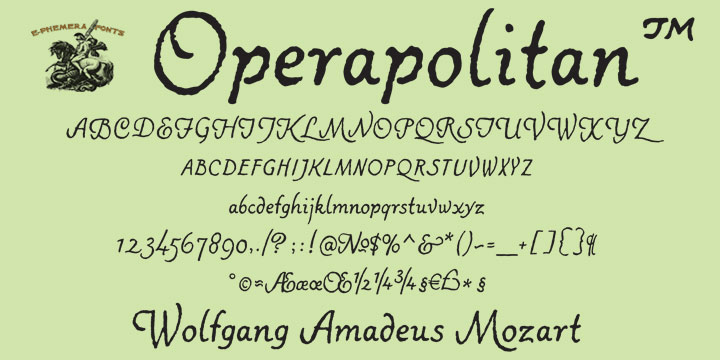
Operapolitan
About Operapolitan
Operapolitan is based on some hand lettering in the program of a New York opera company from 1926. A rough script that is slightly formal but very warm and friendly. It has a complete alternative glyph set meant for use with OpenType contextual alternates…